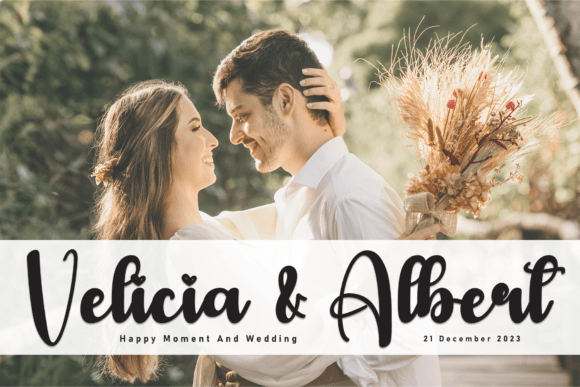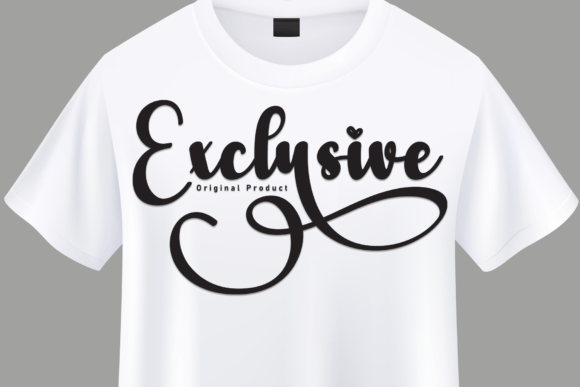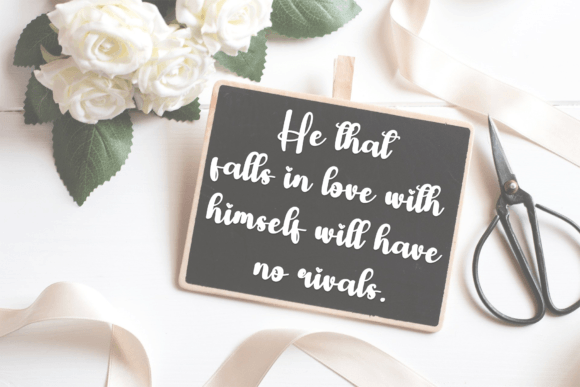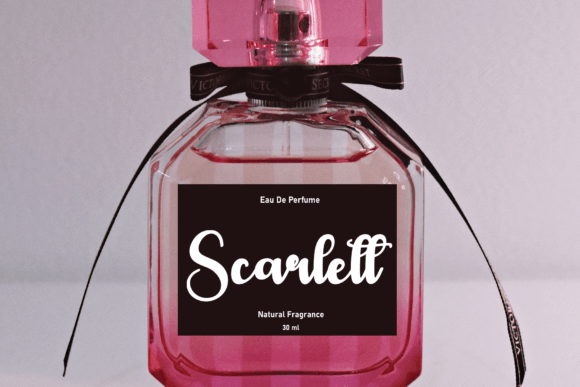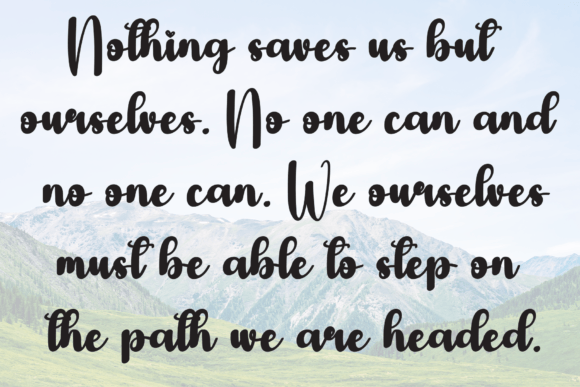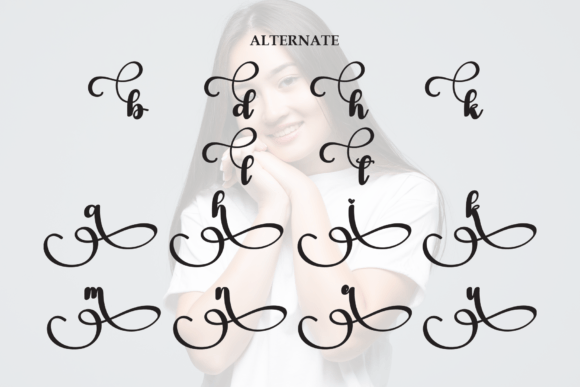
Introduction to Maiden Font
There’s nothing quite like the feeling of bringing a creative project to life. As designers, we’ve all been there – staring at a blank canvas, searching for the perfect font to set the tone for our masterpiece. It’s in these moments that we stumble upon something truly special, and for many of us, that something is the enchanting Maiden Font.
With its elegant script and delicate charm, Maiden Font is the ultimate design resource for any project that requires a touch of sophistication and whimsy. Whether you’re crafting a wedding invitation or a greeting card, this beautiful font is sure to add a high-quality, handwritten feel to your work.
One of the best things about Maiden Font is its versatility – it’s perfect for designers of all levels, from beginners to seasoned pros. And the best part? You can download it for free, making it an invaluable asset to any creative project.
Key Features of Maiden Font
- High-quality design resource ideal for creative projects, with a unique and elegant aesthetic.
- Unique characteristics include a classic, elegant feel and a range of stylistic alternates, making it perfect for creative projects that require a touch of sophistication.
Honest Review: Maiden Font
As a designer, I’m always on the lookout for high-quality design resources that can elevate my creative projects. The Maiden Font is one such find that caught my attention.
What works well: ✨ The Maiden Font boasts a beautiful, elegant script that’s perfect for wedding invitations, quotes, and other creative projects that require a touch of sophistication. The font is highly legible and comes in a range of weights, making it versatile for various design needs. I also appreciate the transparent background option, which gives me more flexibility when working on design projects.
Limitations: ⚠️ While the Maiden Font is a great addition to my design library, I’ve noticed that the font can be a bit too ornate for some projects. It’s best suited for designs that require a touch of luxury and elegance, rather than something more modern or minimalist.
Overall impression: I’m thoroughly impressed with the Maiden Font, and I’m glad I stumbled upon it. The free download option is a major plus, and the high-quality design makes it a valuable resource for any designer. If you’re looking for a beautiful script font to elevate your creative project, the Maiden Font is definitely worth checking out.
Common Use Cases for Maiden Font
The Maiden Font is a versatile design resource that can be used in a variety of creative projects, including wedding invitations, business cards, and social media graphics. Its high quality and unique design make it an ideal choice for designers looking to add a touch of elegance and sophistication to their work.